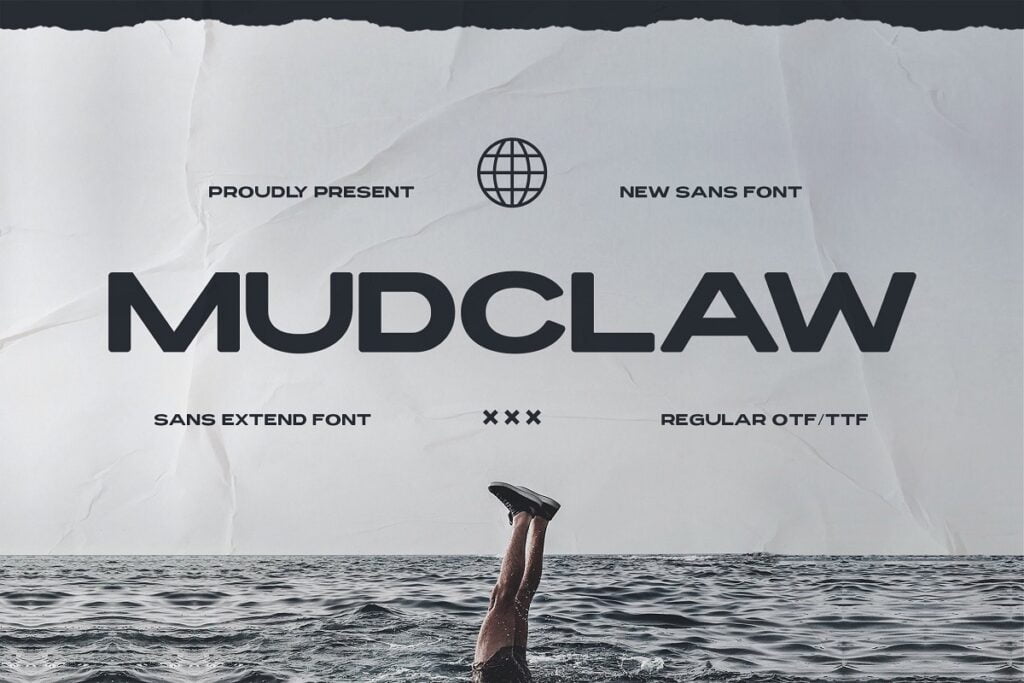
Mudclaw Font
Mudclaw is an extended sans serif font. With its elegant and beautiful arrangement of letters, this typeface will look outstanding in both formal and non-formal designs. Perfect for headlines or logos, jacket, poster, futuristic theme, etc. Finds its inspiration in the style of modern typefaces using extended sans serif and a elegant appearance.